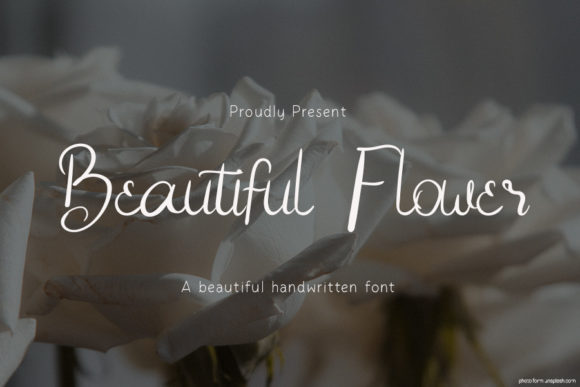
Step into a world of rustic charm and elegance with Beautiful Flower Font — the script font that captures the essence of nature's beauty. Its carefully crafted curves and delicate flourishes evoke a sense of nostalgia and romance, making it the perfect choice for creating designs that exude timeless appeal.
With Beautiful Flower Font, you'll have an endless palette of creativity at your fingertips. Whether you're a seasoned designer or just starting your design journey, this font will inspire you to create stunning logos, branding, and quotes that leave a lasting impression. Let your imagination bloom as you explore the possibilities with Beautiful Flower Font.
Its versatility knows no bounds — from wedding invitations and save-the-dates to branding for small businesses and handcrafted products, Beautiful Flower Font adds a touch of sophistication and charm to any project. Its natural flow and elegant lines will elevate your designs and captivate your audience.
But Beautiful Flower Font isn't just visually stunning; it's also incredibly user-friendly. Encoded with PUA, this font grants you effortless access to all of its glyphs and swashes. Unleash your creativity without limits and let your designs flourish with ease.
Join the countless designers who have fallen in love with the magic of Beautiful Flower Font. Let its beauty bloom in your creations and experience the joy of crafting designs that resonate with your audience. Start your design journey today and discover the endless possibilities that await you with Beautiful Flower Font.